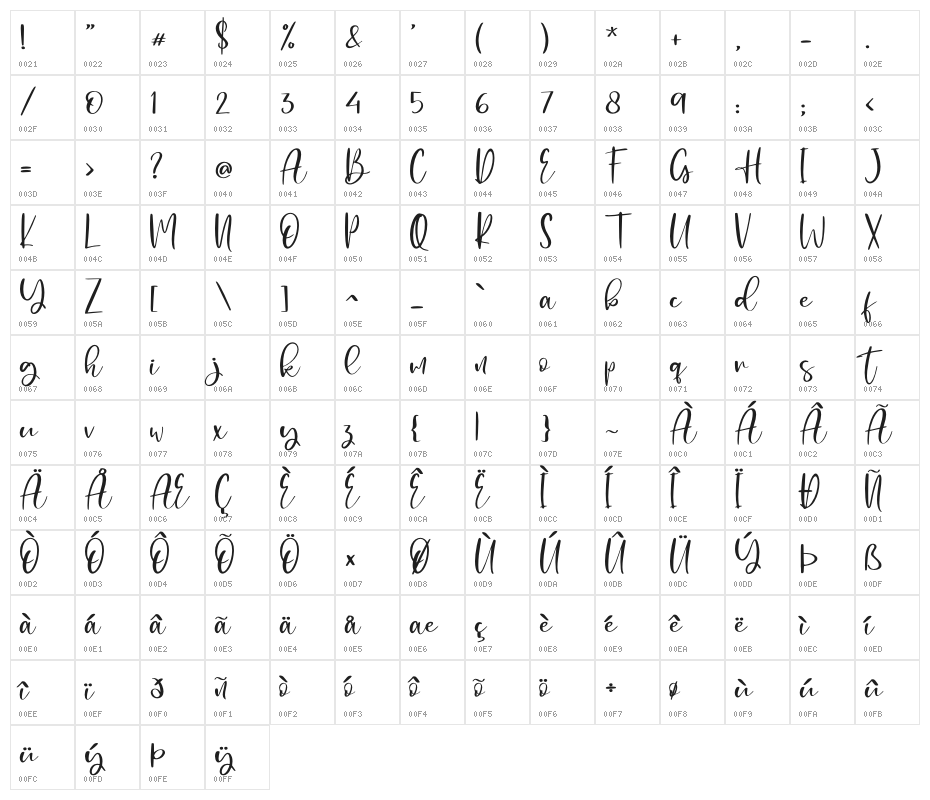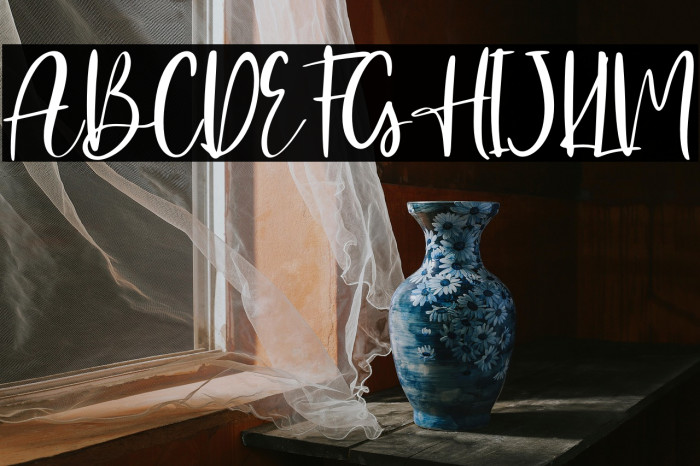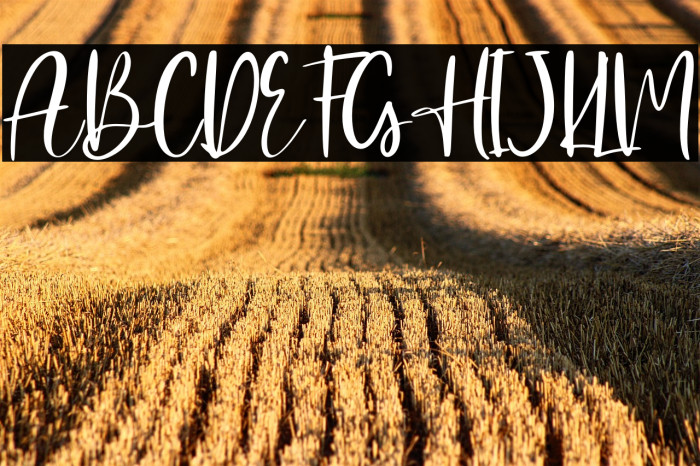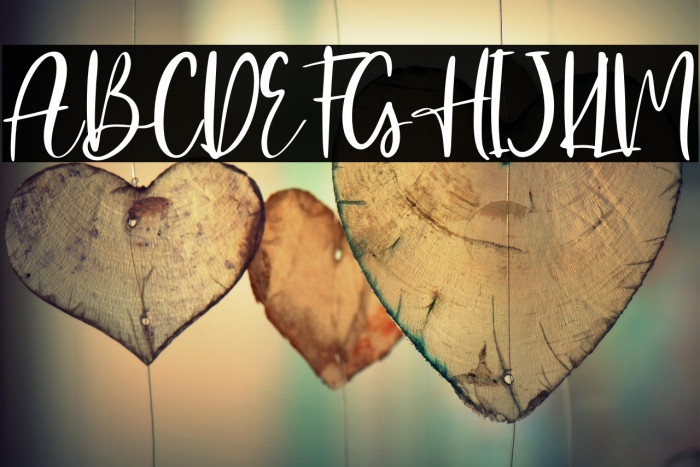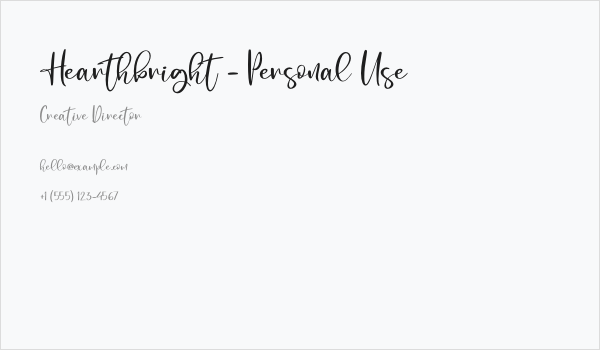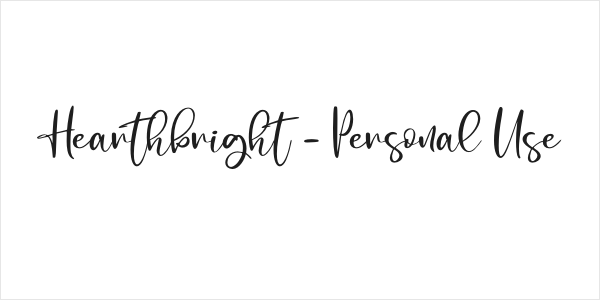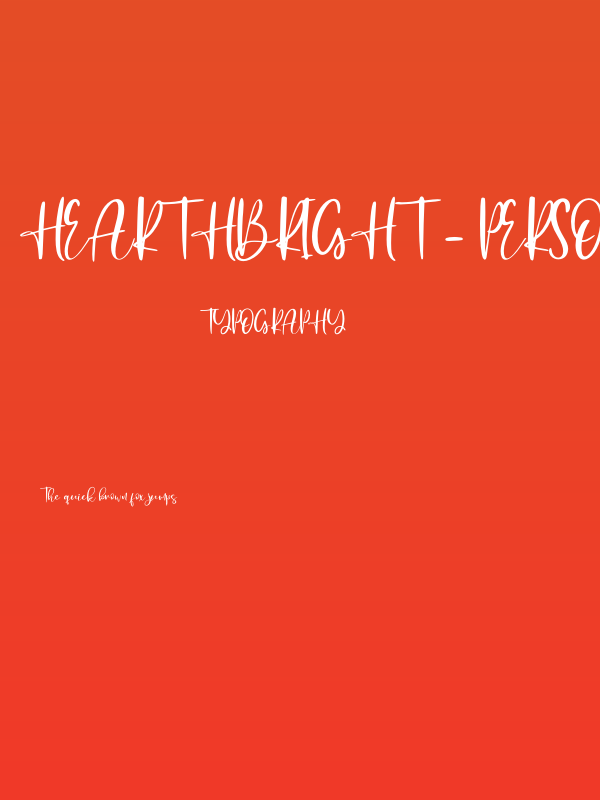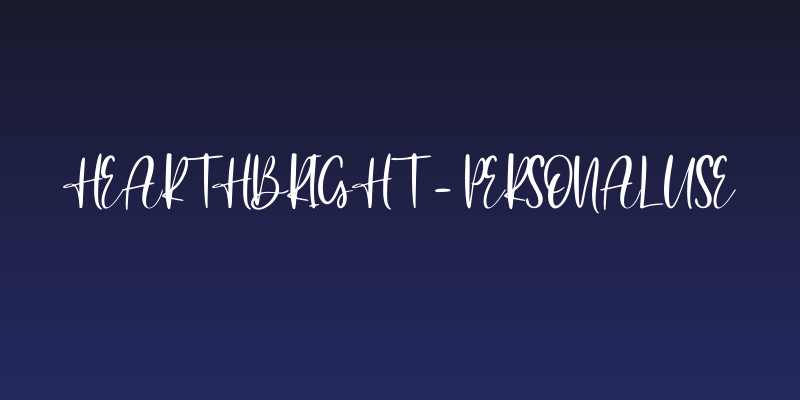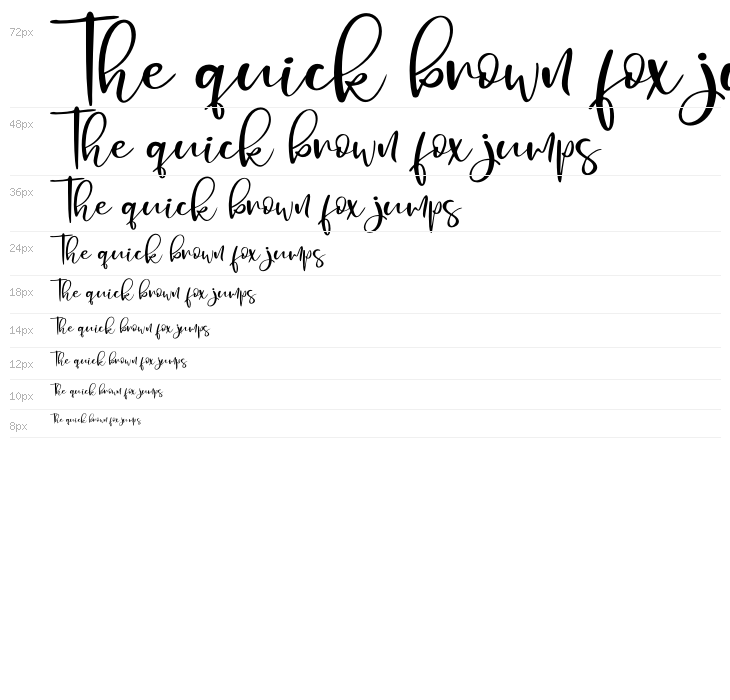
Hearthbright - Personal Use Font
Hearthbright - Personal Use Description
This font features a lively and expressive handwritten style, characterized by its fluid and dynamic strokes. The uppercase letters exhibit a playful yet elegant flair, with varying stroke widths that add a sense of movement and energy. The lowercase letters maintain this fluidity, offering a cohesive and harmonious appearance. Numbers and special characters are crafted with the same attention to detail, ensuring consistency across all elements. The overall design is both modern and artistic, making it suitable for creative projects that require a personal touch.
| Proposed Projects | Ideal for wedding invitations, greeting cards, branding projects, and social media graphics. |